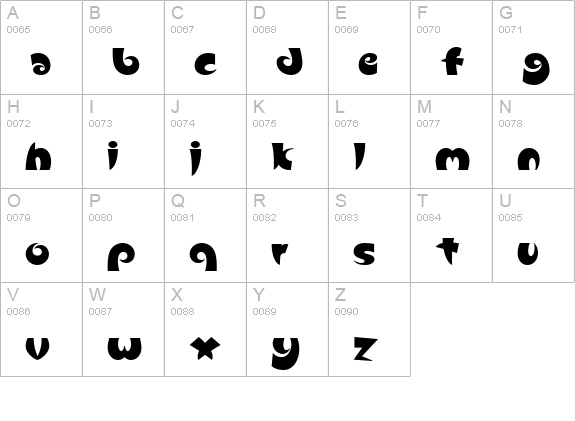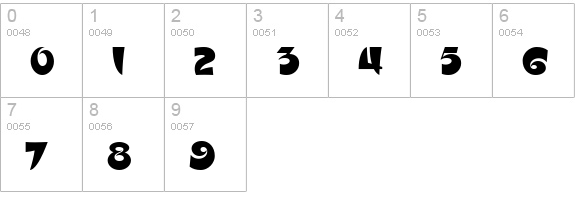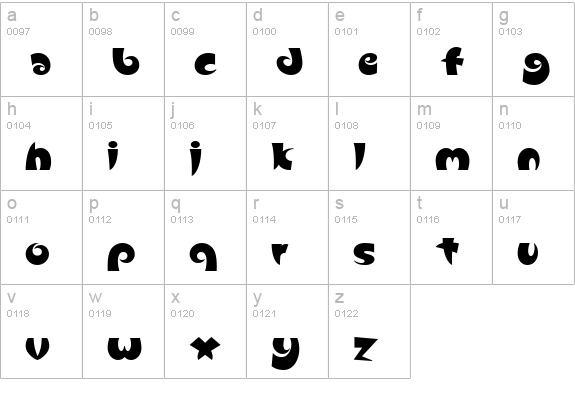
Slugfest NF Font Details
Slugfest NF is a bold and powerful display font that exudes strength and confidence. With its strong, thick strokes and edgy design, this font is perfect for making a statement or grabbing attention. The unique letter shapes give Slugfest NF a modern and dynamic feel, making it ideal for headlines, logos, posters, and other eye-catching designs. What sets Slugfest NF apart is that it is not only a striking and attention-grabbing font, but it is also completely free to download. You can easily access this font at FontsMarket.com, where you can unleash your creativity and use Slugfest NF to make your designs stand out. Whether you're working on a branding project, creating social media graphics, or designing a bold poster, Slugfest NF is the perfect choice for adding impact and personality to your work. Download Slugfest NF today and take your designs to the next level!